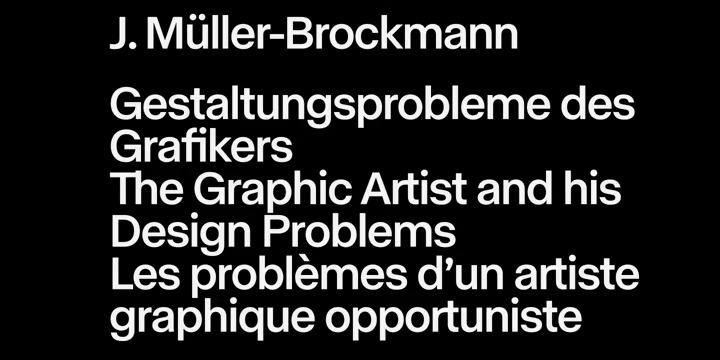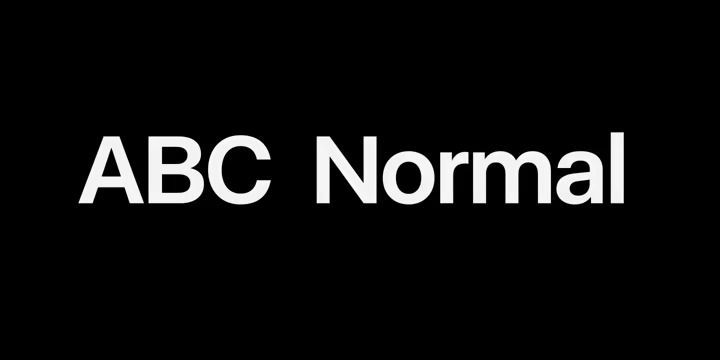
ABC Normal Sans Serif Font
This font has balanced proportions in every letter, and it’s clean, minimal and cool. Made for any professional project branding. It is perfect for printing, branding and quotes. works well in any graphic design project and purpose as a display typeface.